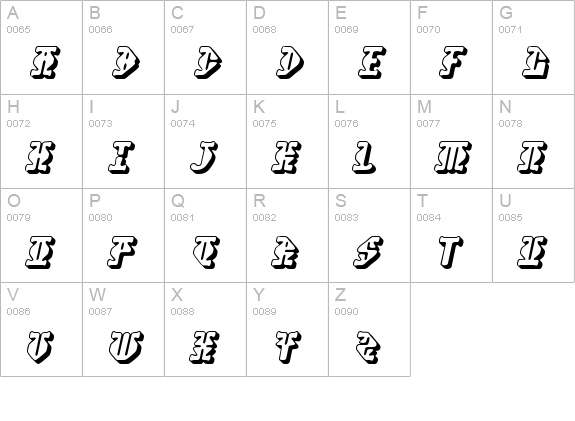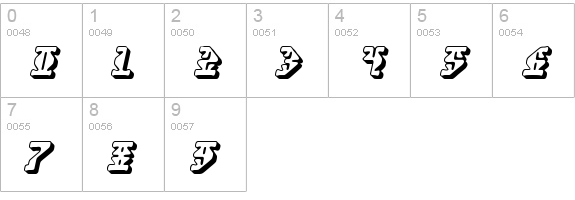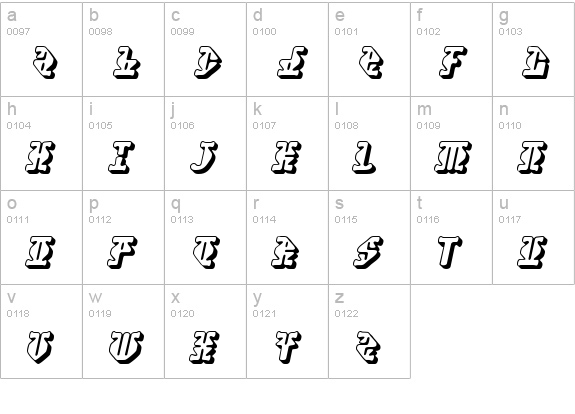
Stupefaction 3D Font Details
Stupefaction 3D font is a mesmerizing and dynamic typeface that will captivate the eyes of any viewer. Its three-dimensional design gives the characters a sense of depth and dimension, making them pop off the page with a stunning visual effect. This font is perfect for creating eye-catching headlines, titles, and signage that demand attention. What sets Stupefaction 3D font apart is not only its striking appearance but also the fact that it is available for free. Yes, you read that right - this incredible font can be downloaded at no cost on FontsMarket.com. Whether you're a designer looking to add a touch of flair to your projects or a creative individual seeking a unique font for personal use, Stupefaction 3D font is the perfect choice. Download it today and let your creativity soar with this free and captivating typeface.